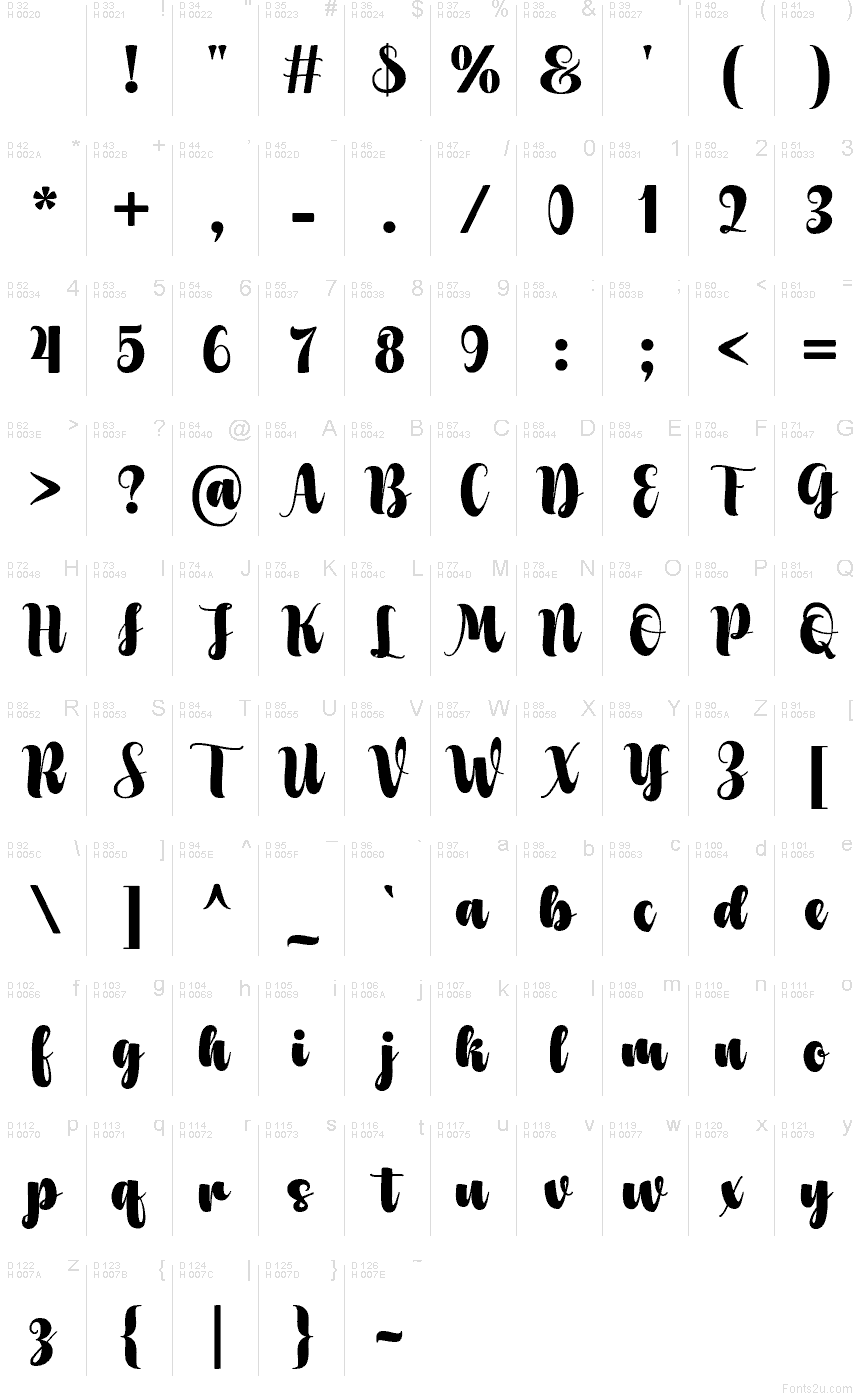
Glow Regular
Glow font by Wais Alqarni of Ws Studio is a free brush script font that feels like it’s been painted in confident, inky strokes. Bold, rounded curves flow into each other with an easy bounce, giving every word a friendly, hand-lettered warmth. The strokes are full and saturated, so letters look rich and solid, not scratchy or thin, even at larger sizes.
Using Glow, you get a script that shines on product packaging, logos, quote graphics, greeting cards, social media posts, and playful headlines. Its smooth rhythm and generous curves create an instant sense of personality without becoming messy or hard to read. This free font pairs nicely with a clean sans serif in small caps-set Glow big and bold for names or titles, and let the simpler type carry the supporting text.